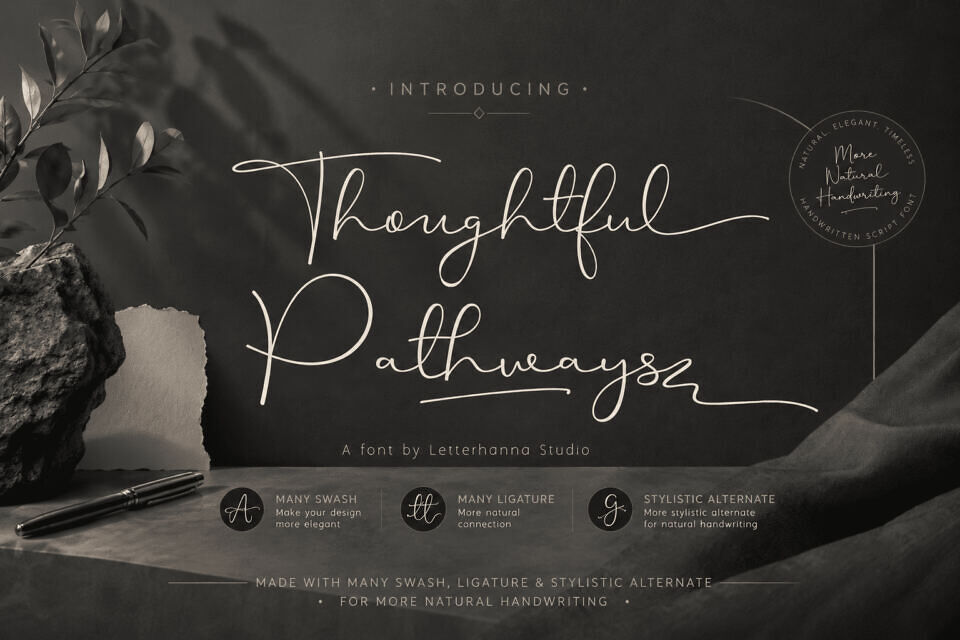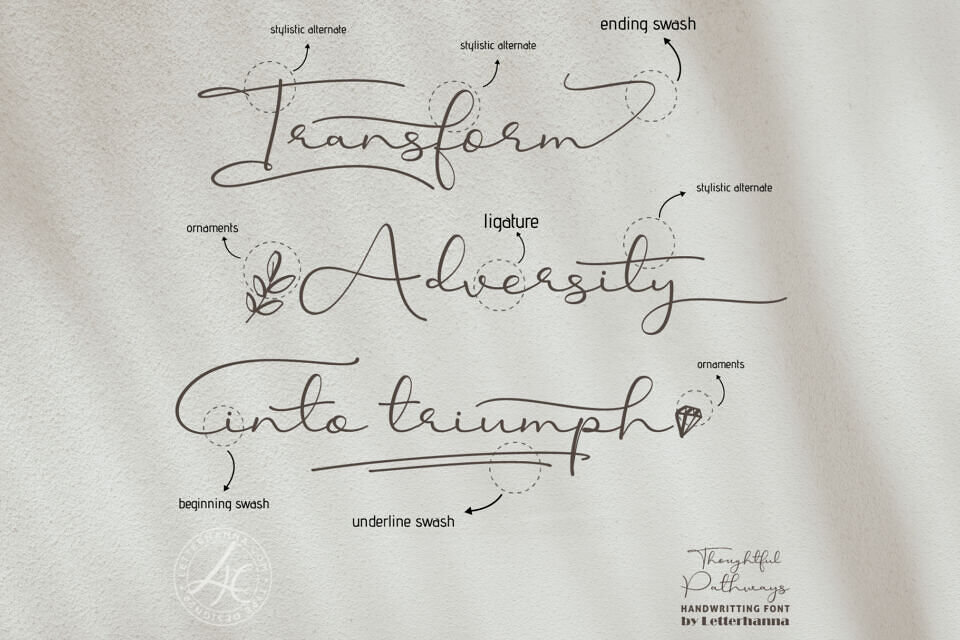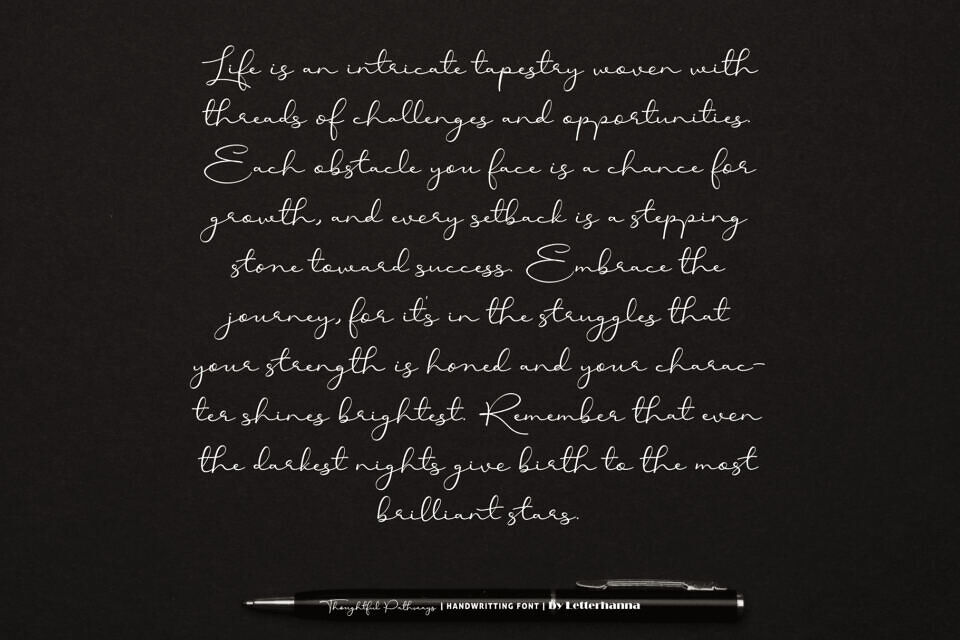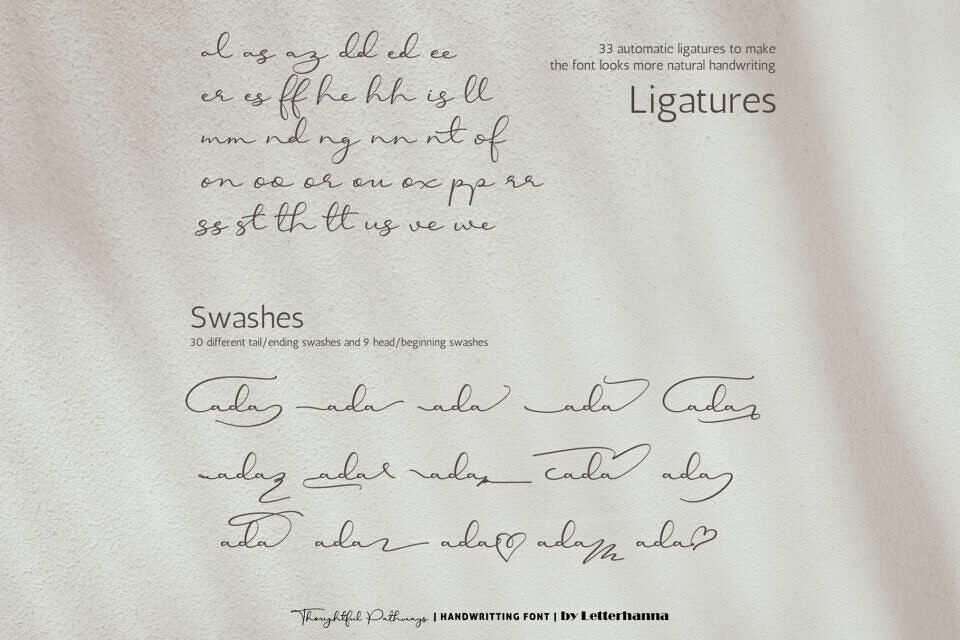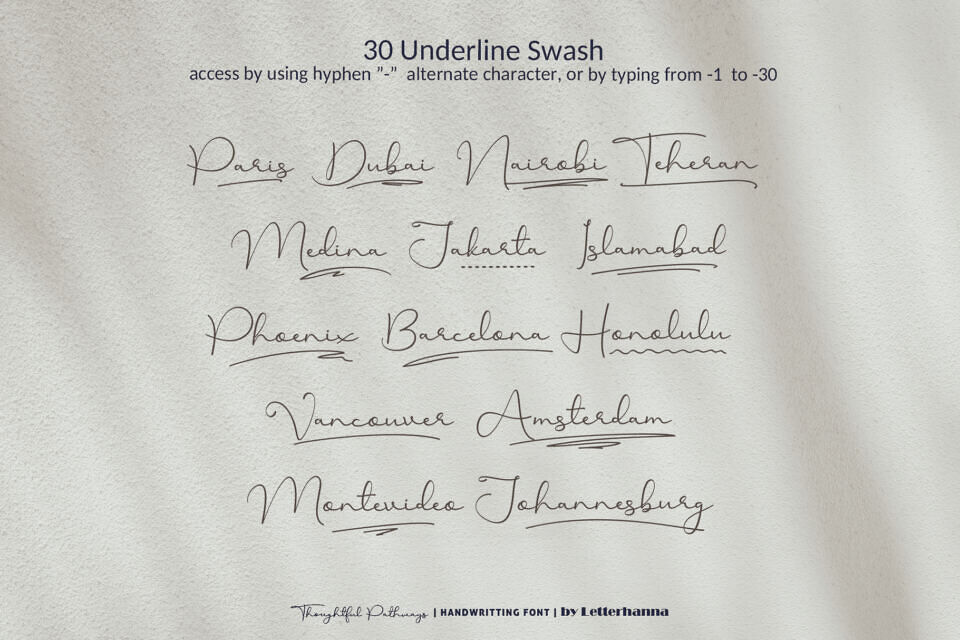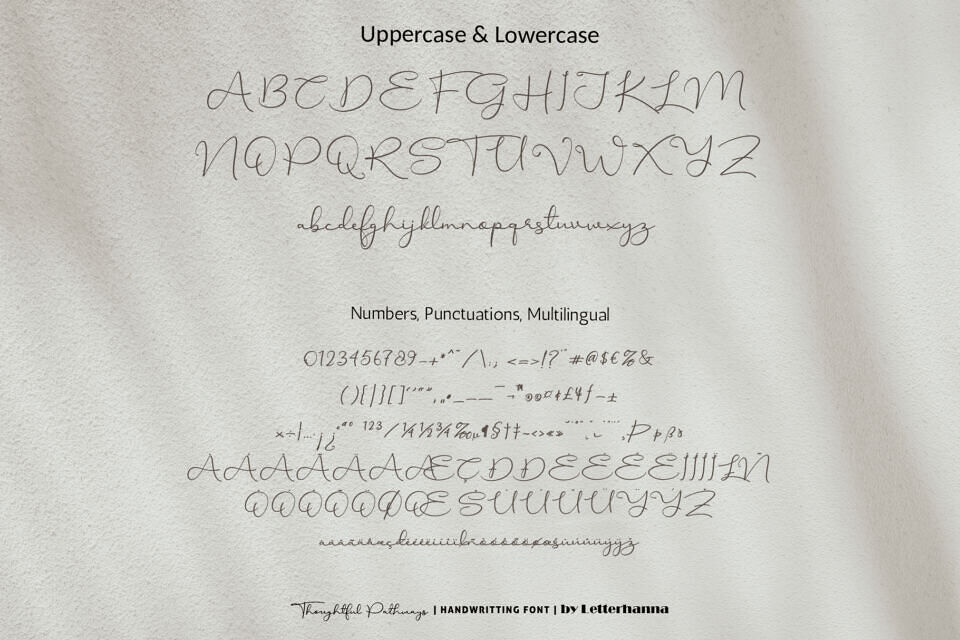
Introducing “Thoughtful Pathways”, a captivating handwritten font that captures the essence of introspection and mindful exploration. With every stroke, it whispers the wisdom of a thousand quiet moments, guiding you through the intricate trails of your thoughts.